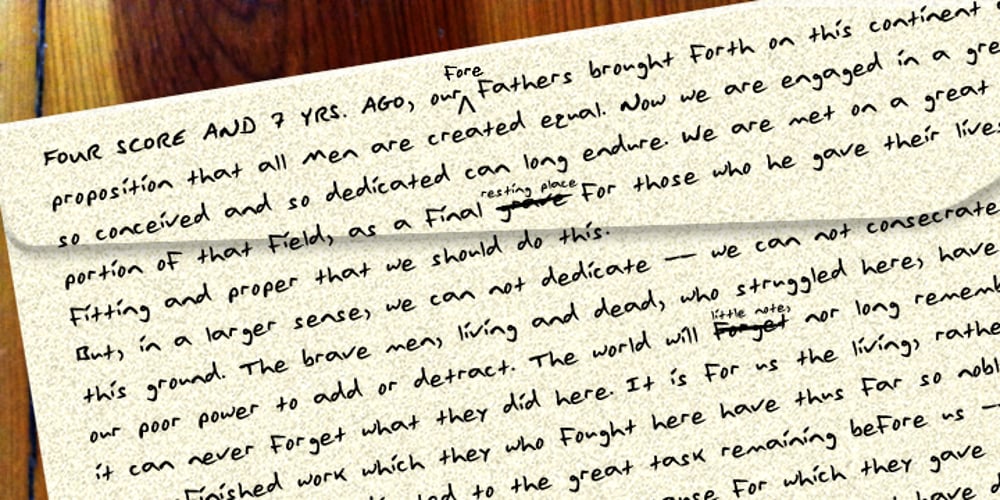
Gawain’s Hand Font Family was designed by Randy Harris and published by Just My Type. Gawain’s Hand contains 1 styles and family package options. Gawain Douglas was my co-worker and eventually my boss when I worked for the Tucson Citizen. He’s director of production and design for a children’s book publisher now, a very talented and creative guy and Gawain’s Hand is what his writing looks like. A shame, isn’t it? Just kidding, Gawain; I wouldn’t have featured it, if I hadn’t liked it. Really. No, really. 🙂